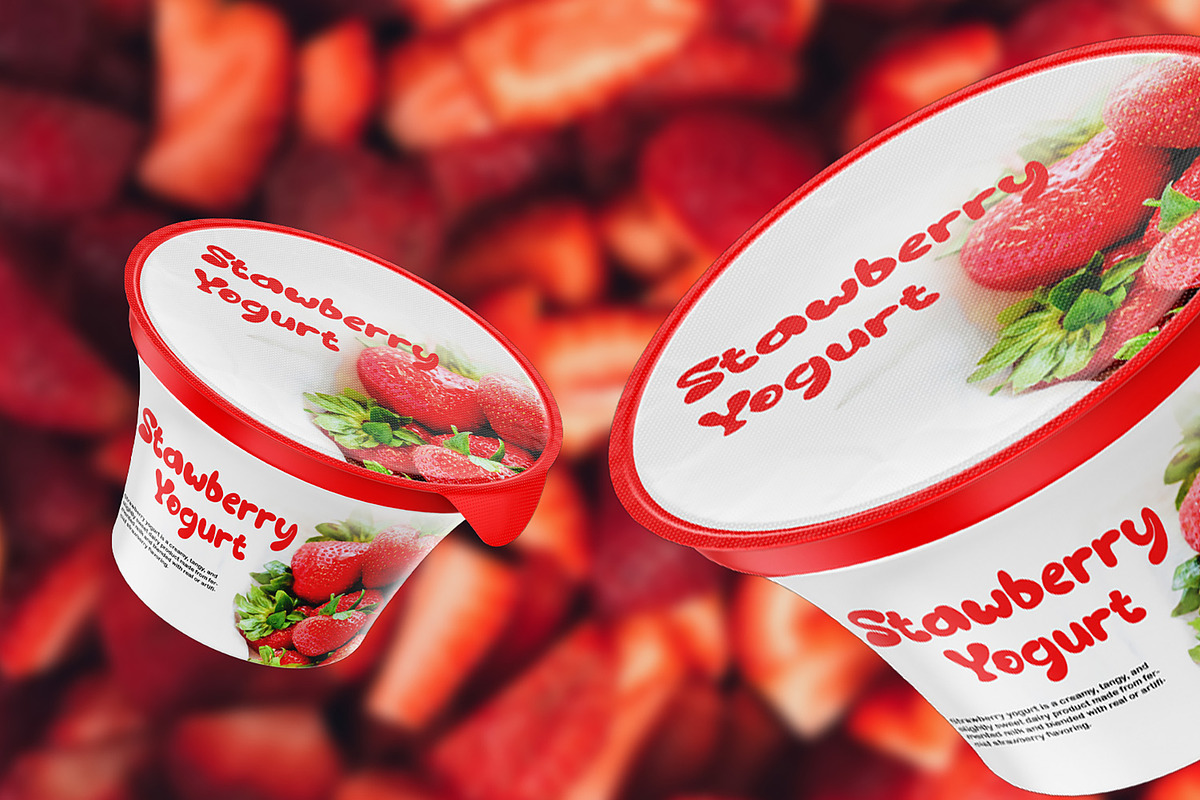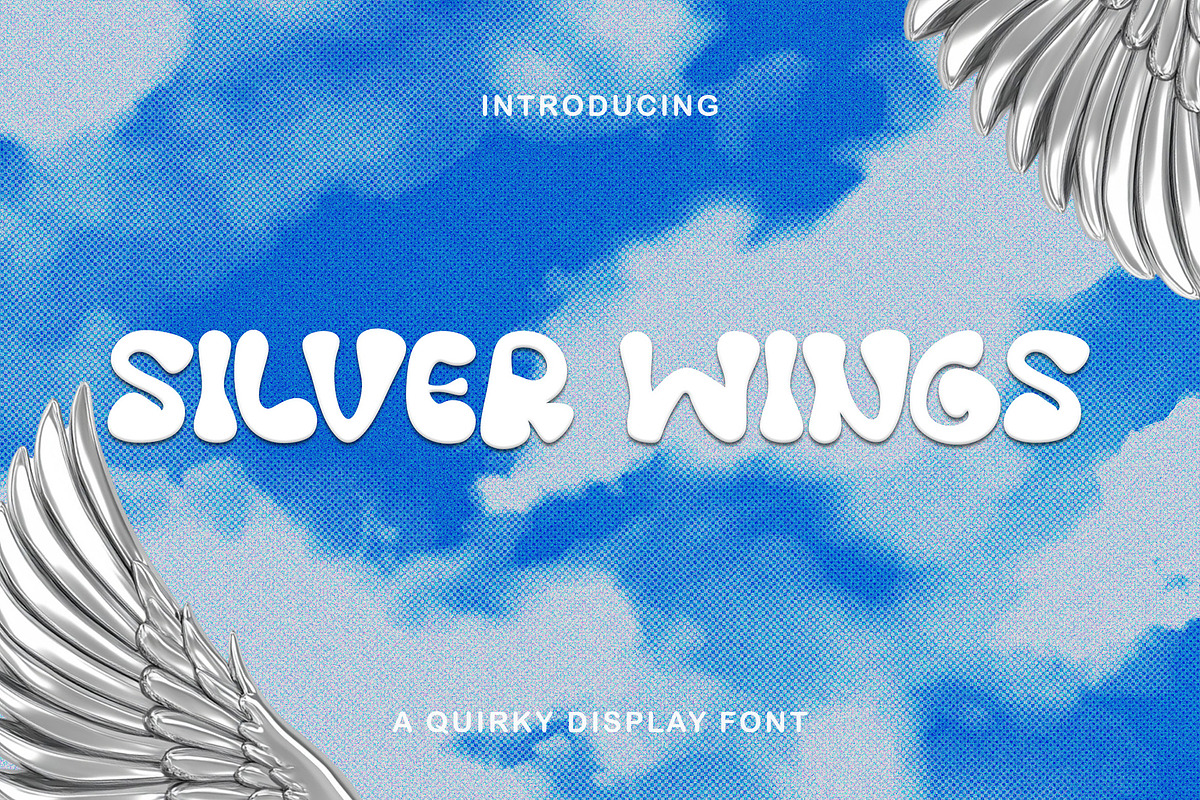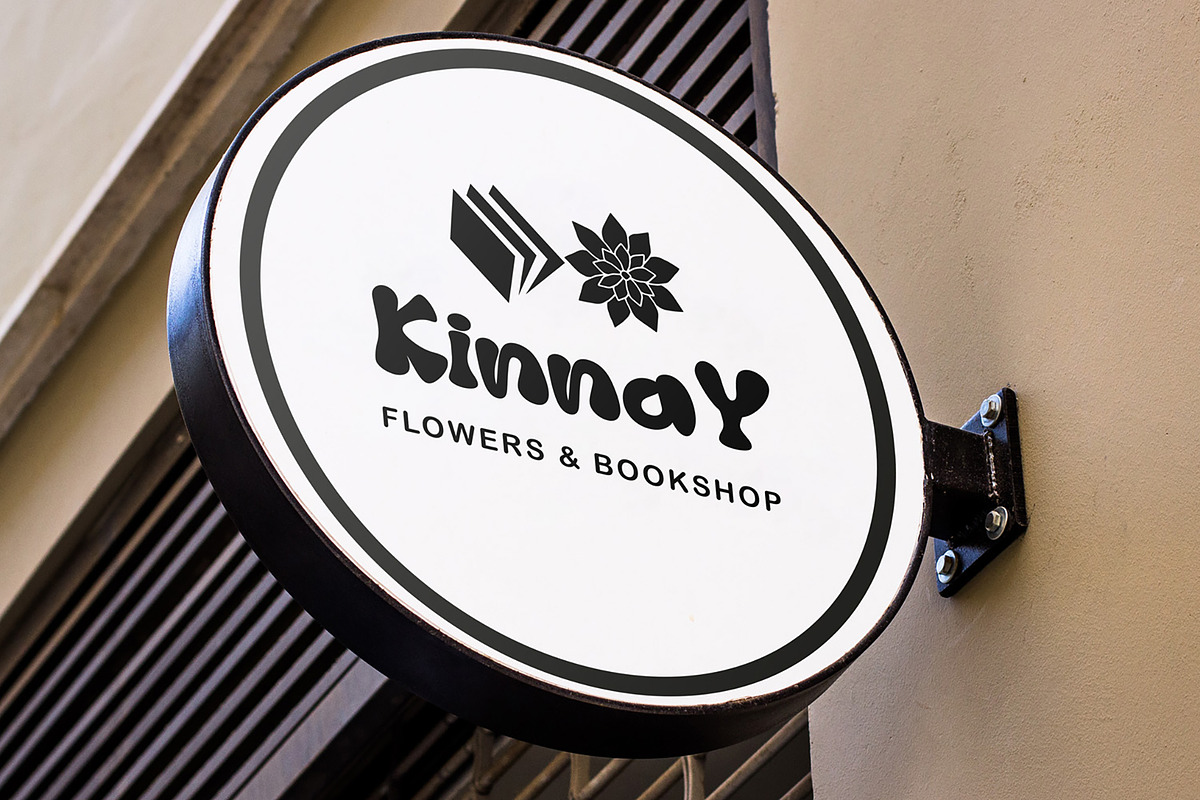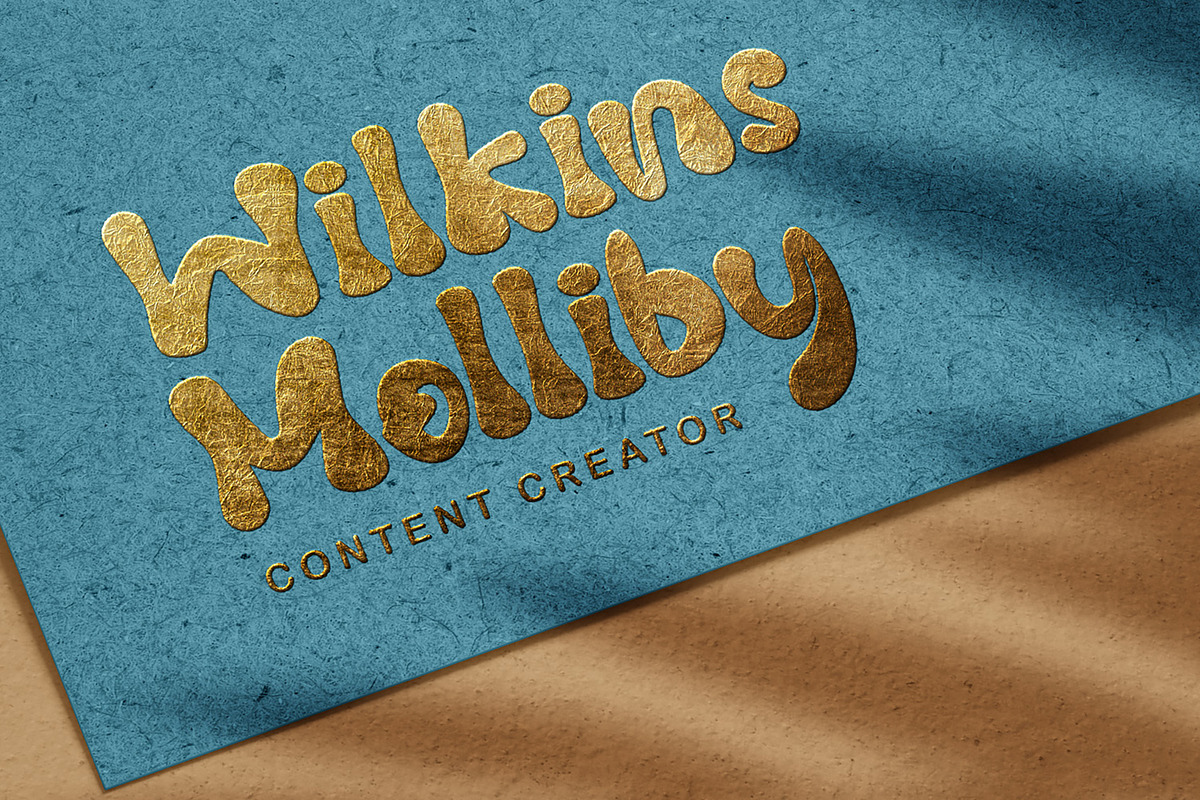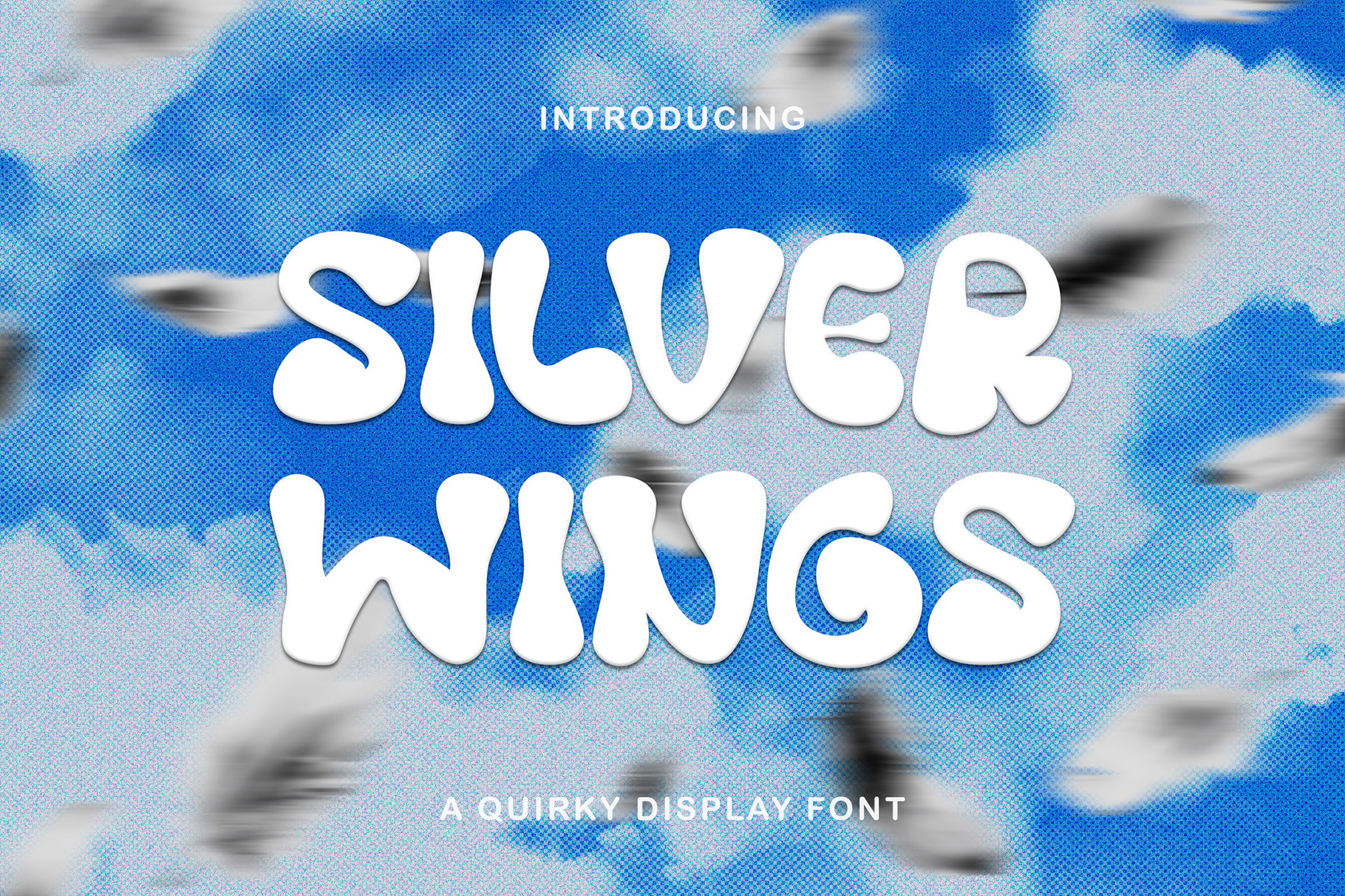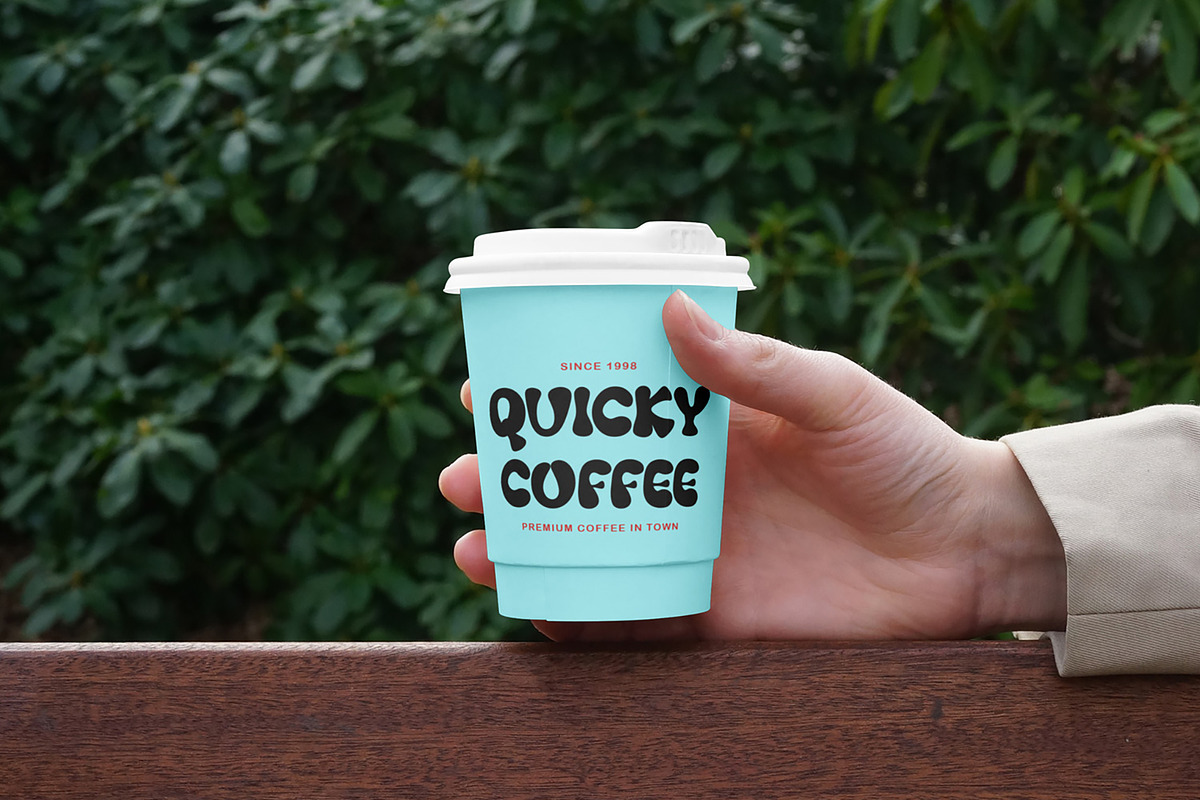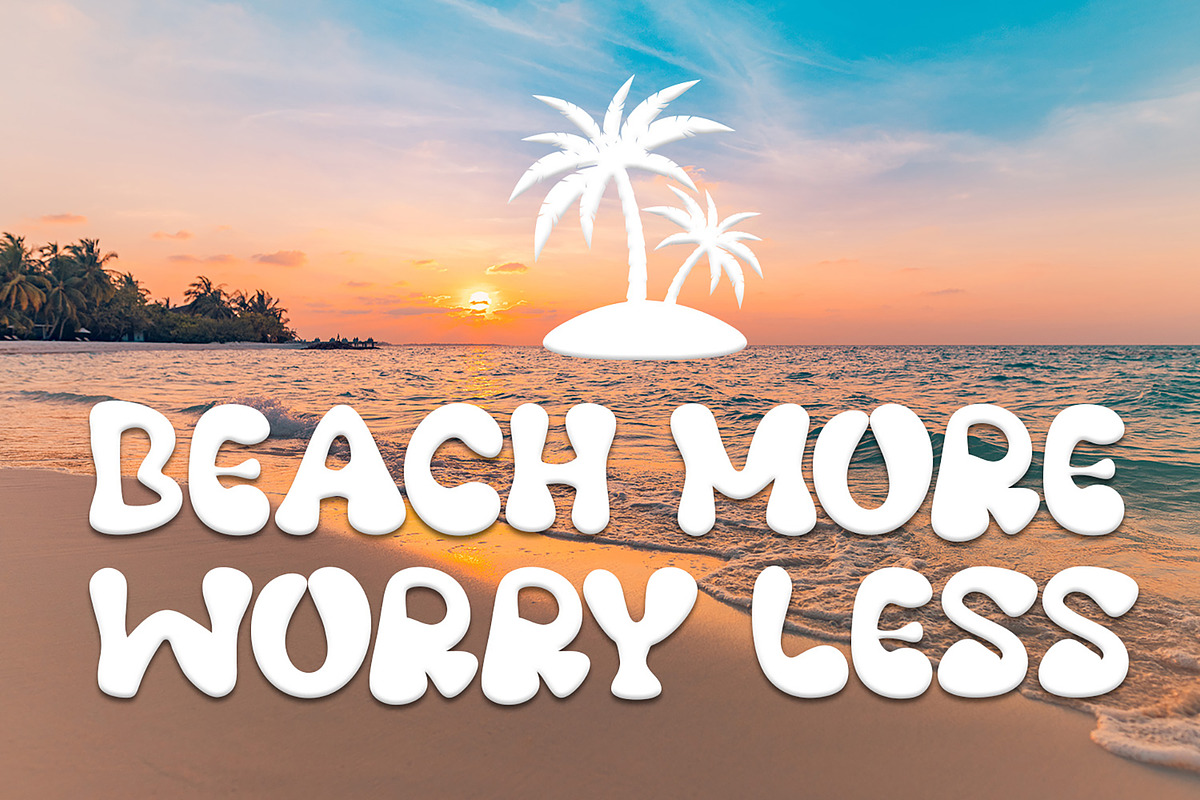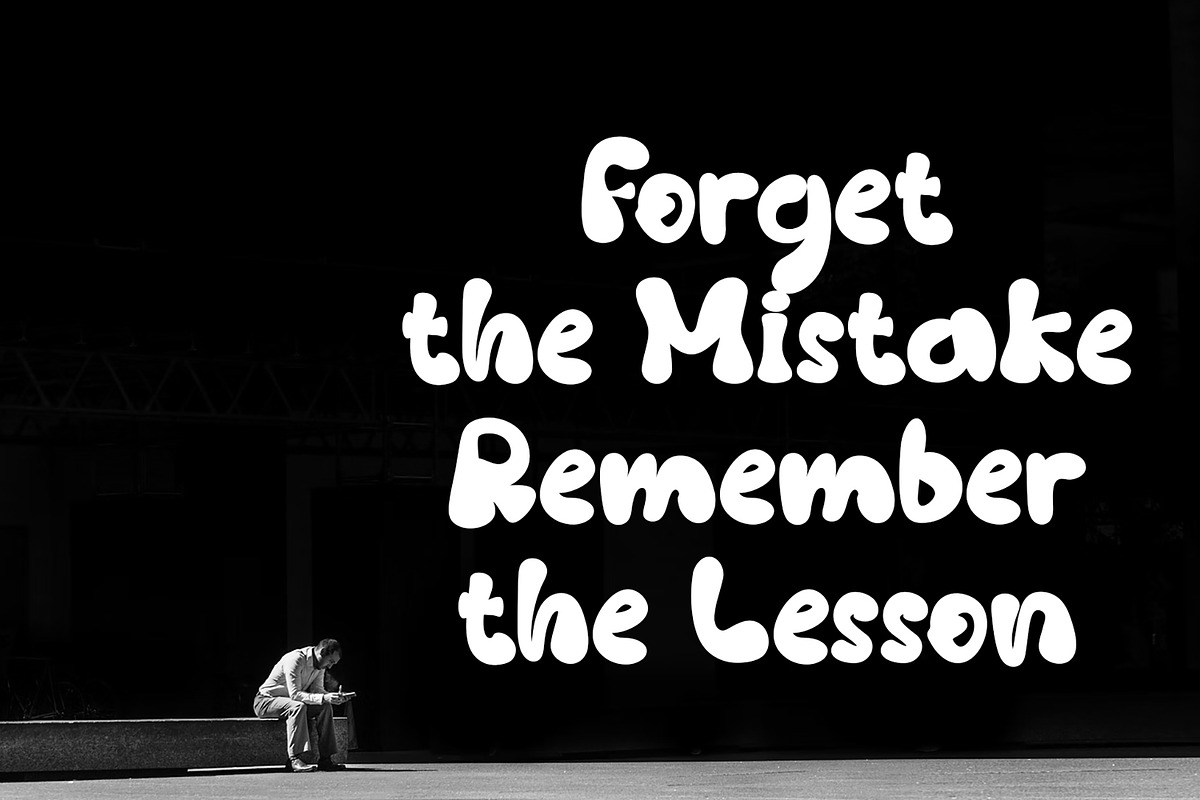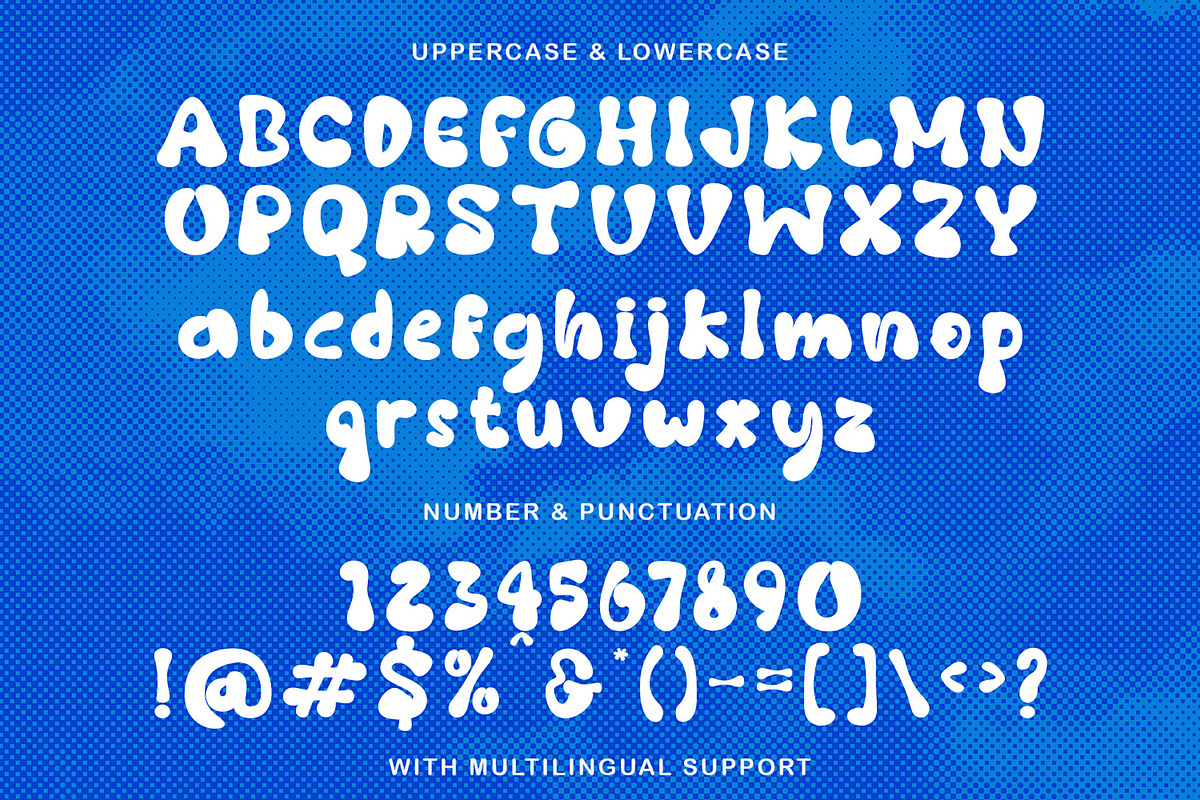
Silver Wings - Handdrawn Bubble Font
Silver Wings - Hand Drawn Bubble Font
Quirky, Playful, Cute, & Groovy - Hand Drawn Bubble Display Font
Perfect for Logotype, brand logo, apparel design, clothing, fashion, creative industry, signature, headline/title on poster, brochure, packaging, wedding invitation, quotes, magazine, social media etc.